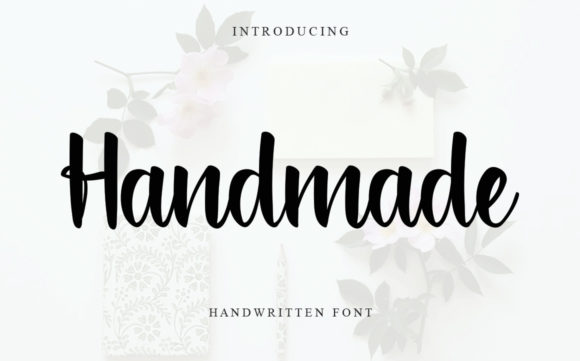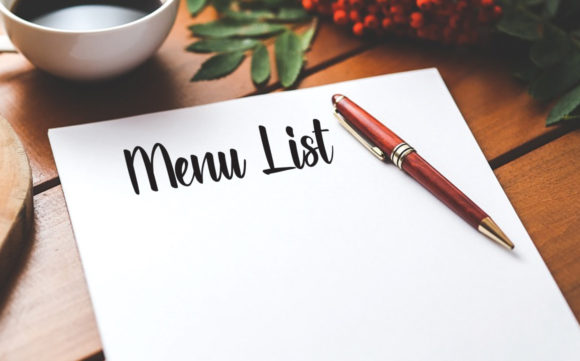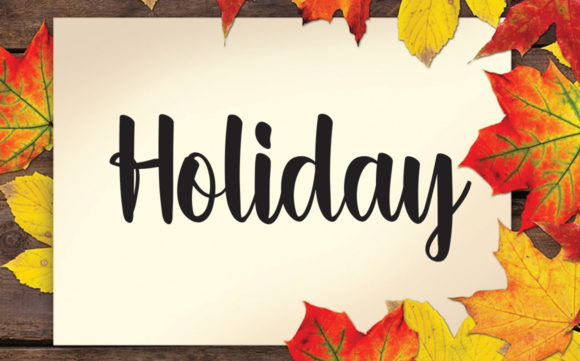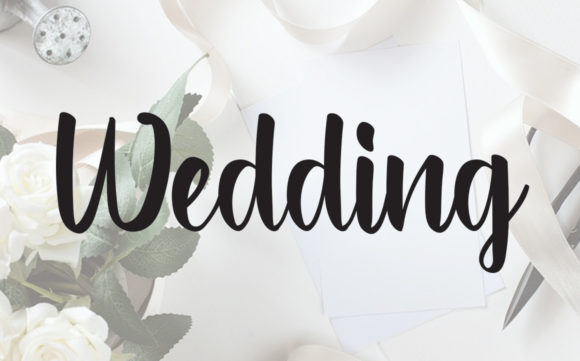
Handmade is a beautiful script font that fits various informal and formal creations. It works incredibly well on quotes, logos, card writing or even wedding invitations. Its simple vibe will make your designs look impeccable.